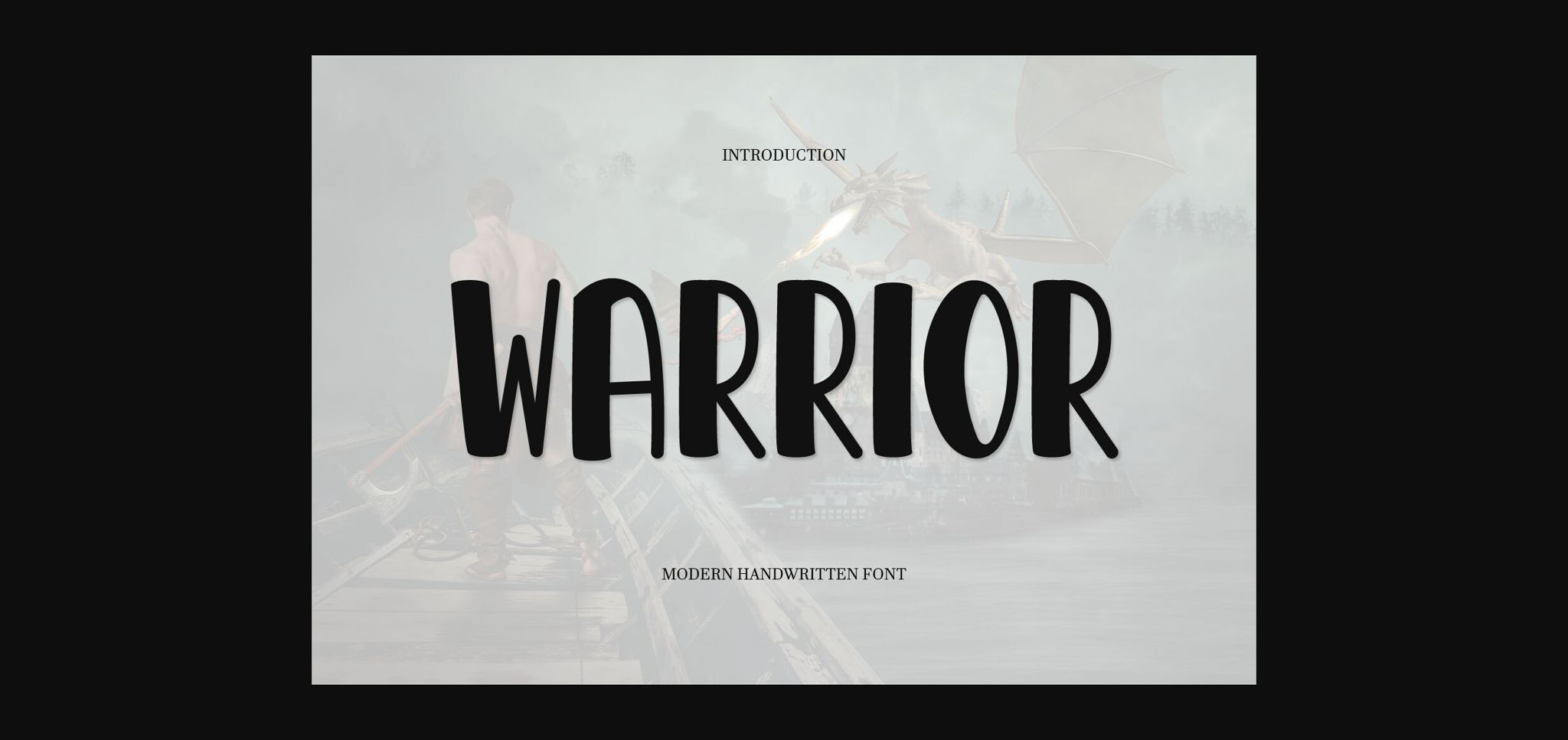
About Warrior Font
Warrior is a fun and friendly sans-serif font. Whether you’re using it for crafts, digital design, presentations, or making greeting cards, this font has the potential to become your favorite go-to font, no matter the occasion!